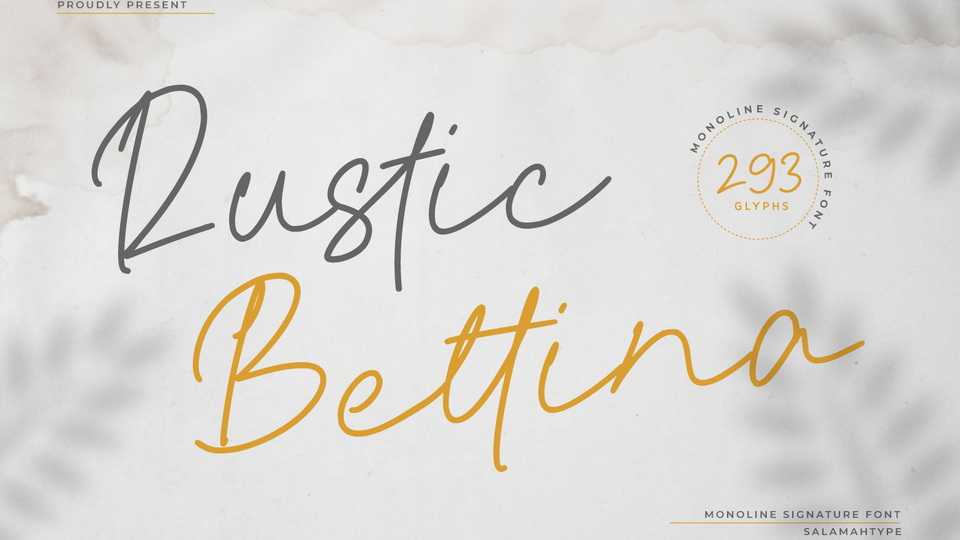
Download Rustic Bettina font, an elegant monoline script typeface like a pen ink brush that is strong but looks flexible. Rustic Bettina font is suitable for logo, social media posts, advertisements, product packaging, branding projects and more.